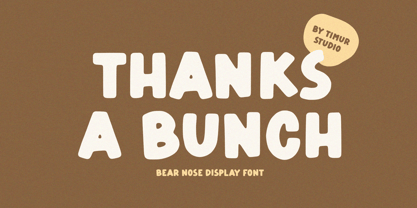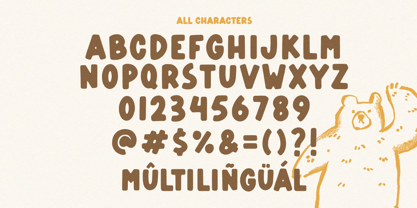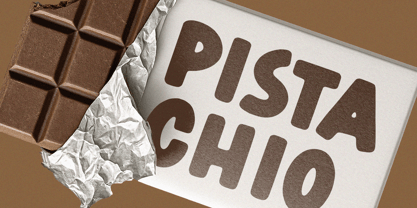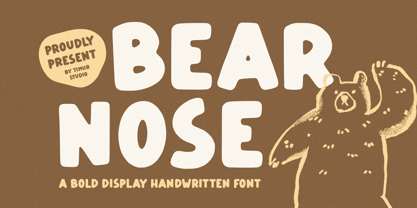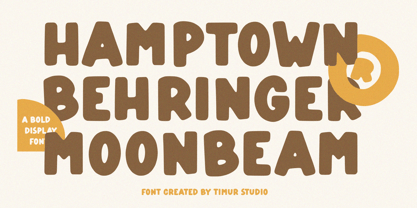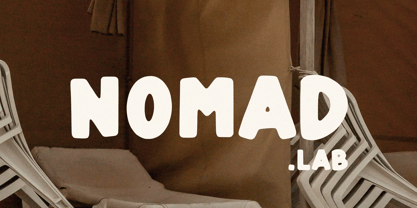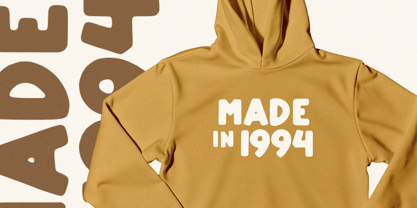
Bear Nose
by Timurtype
The Bear Nose Font Family was designed by Wara Sigit Tri Pamungkas and published by Timurtype. Bear Nose contains 1 styles. More about this family
Bear Nose is a Bold Display Handwritten Font
This font is a bold, display handwritten font that combines rugged charm with playful. With thick strokes and expressive curves, it captures the raw energy of hand-drawn lettering, making it perfect for eye-catching headlines, posters, and creative branding. Bear Nose adds a touch of wild character to any design.
Bear Nose Font also supports multilingualism
Designers: Wara Sigit Tri Pamungkas
Foundry: Timurtype